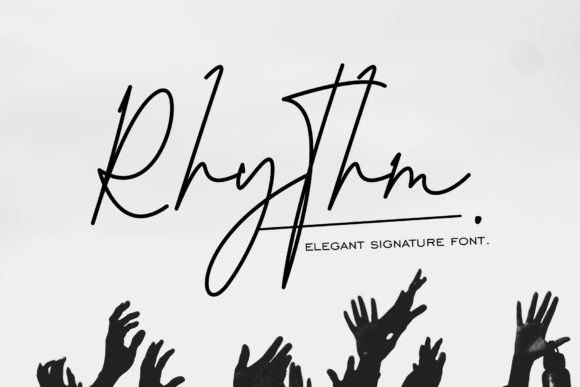
Prepare to be mesmerized by Rhythm Font, a captivating script that embodies the essence of an artist's signature. Every stroke, every curve, is infused with an unmatched character, ready to transform your projects into masterpieces.
Immerse yourself in a world of class and sophistication as you unleash the power of Rhythm Font. Let its elegant touch elevate your designs, adding a touch of allure that will leave a lasting impression.
Whether you're crafting captivating headlines, designing eye-catching posters, or creating social media posts that demand attention, Rhythm Font is your secret weapon. Its versatility knows no bounds, empowering you to express your creativity in a myriad of ways.
Imagine your designs adorned with Rhythm Font, a font that exudes confidence and style. Feel the rush of inspiration as you witness your projects come to life, imbued with a touch of artistic flair that sets them apart from the ordinary.
With Rhythm Font at your fingertips, you'll discover a world of endless possibilities. Embrace the allure of elegance, let your creativity soar, and experience the transformative power of this extraordinary font. It's time to captivate, inspire, and leave an unforgettable mark on the world.